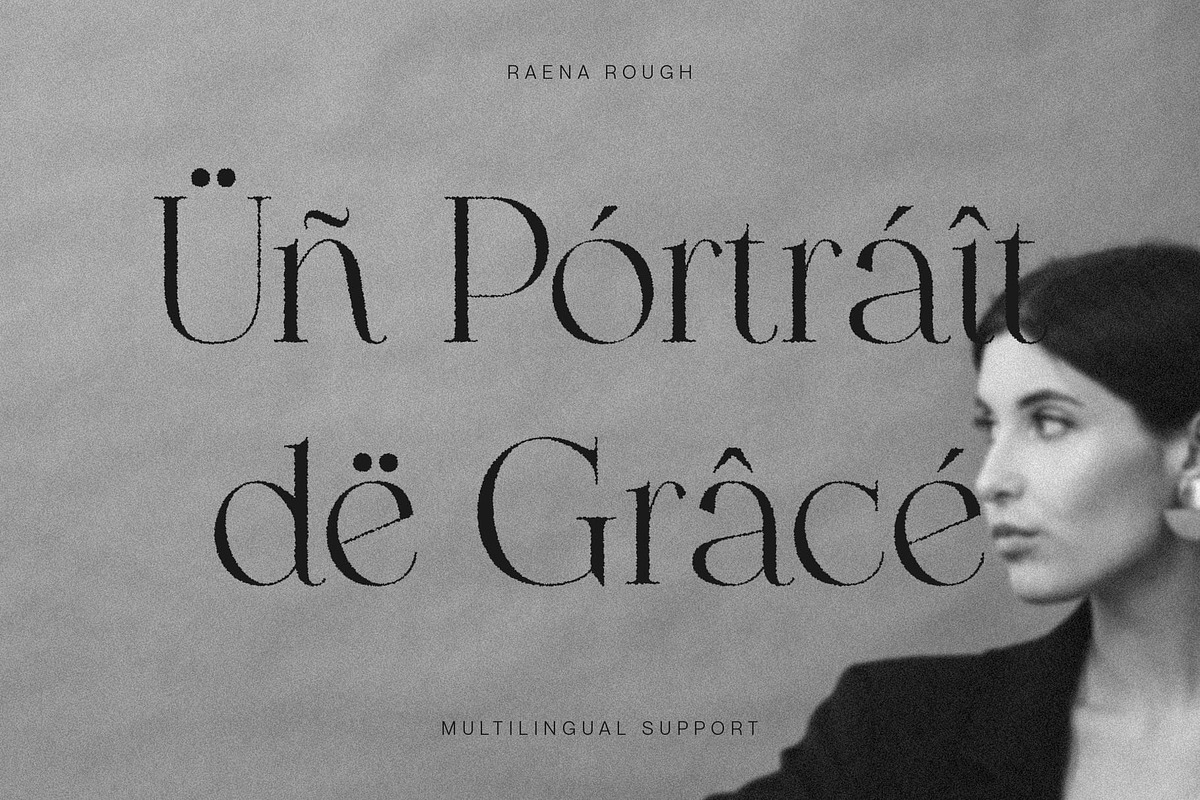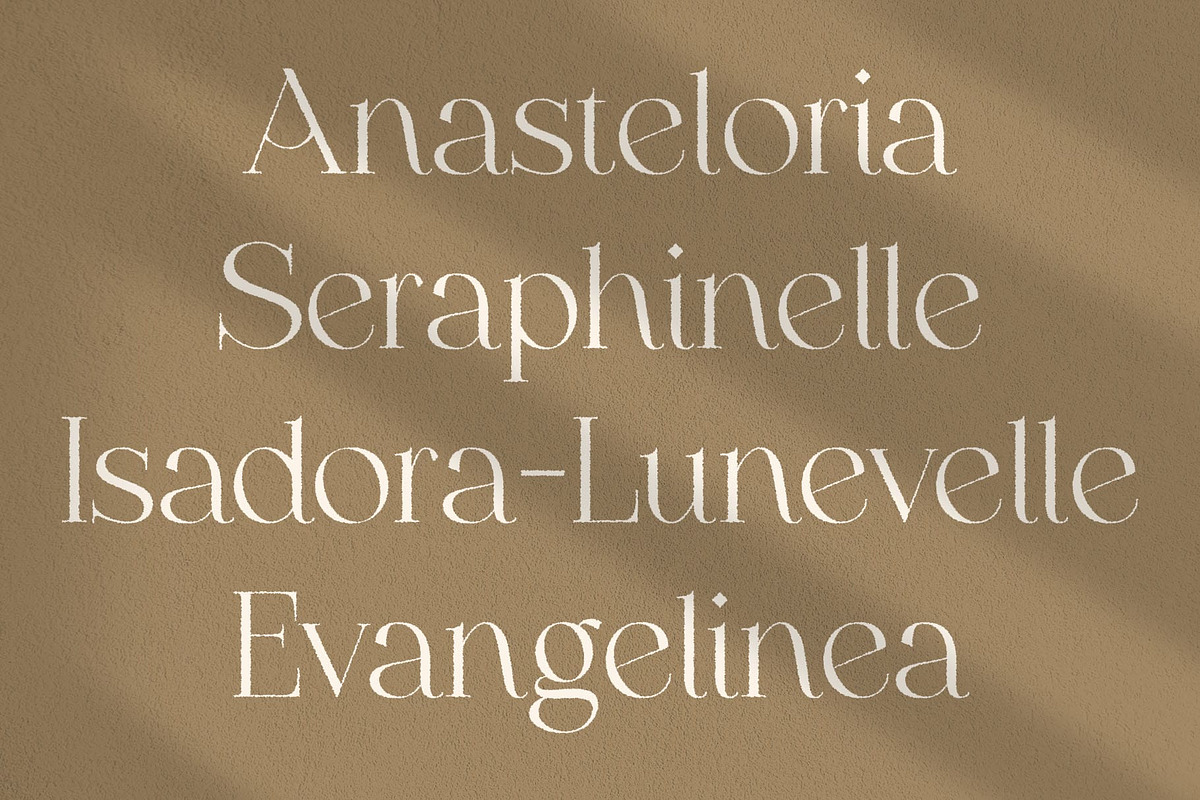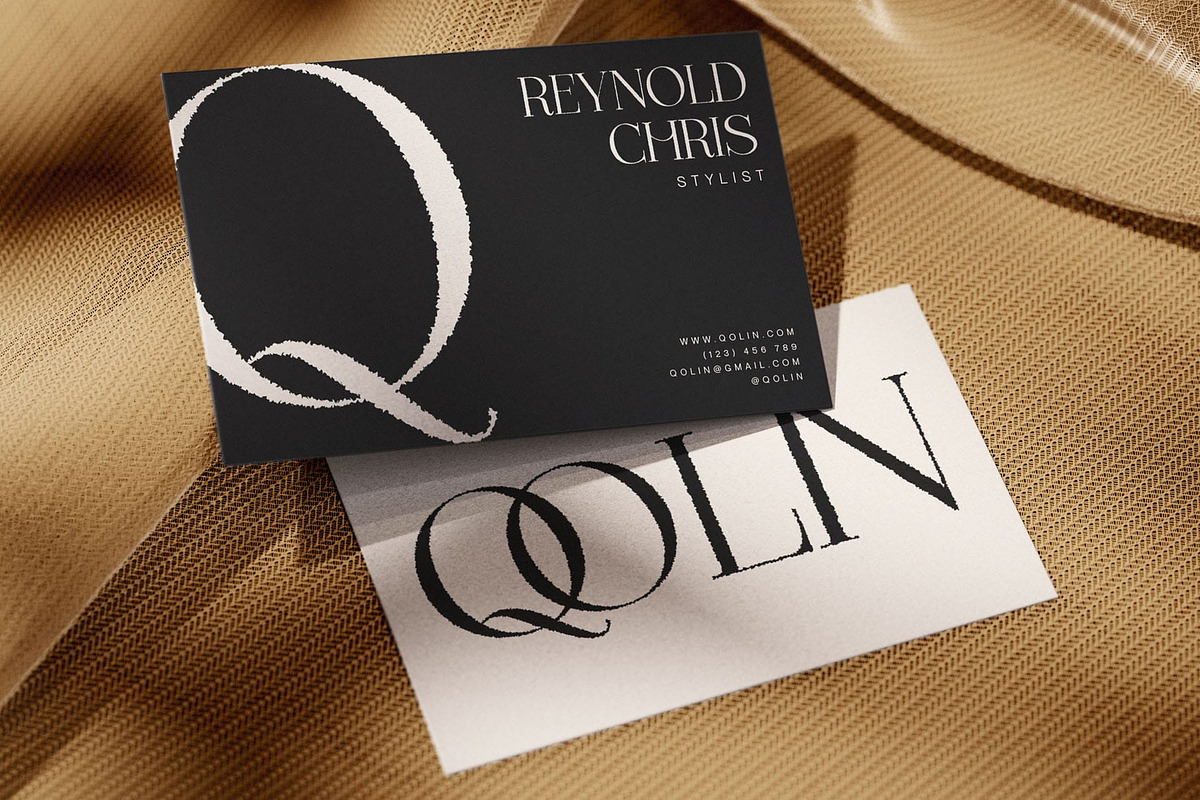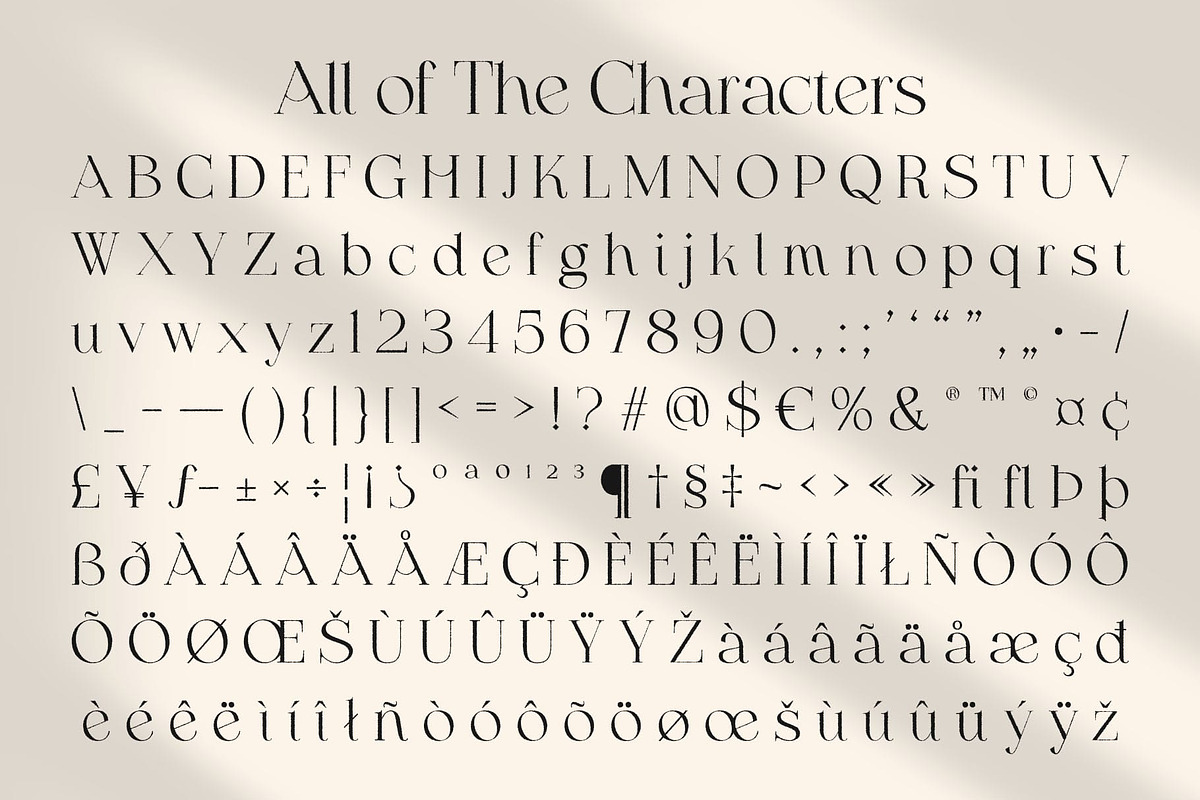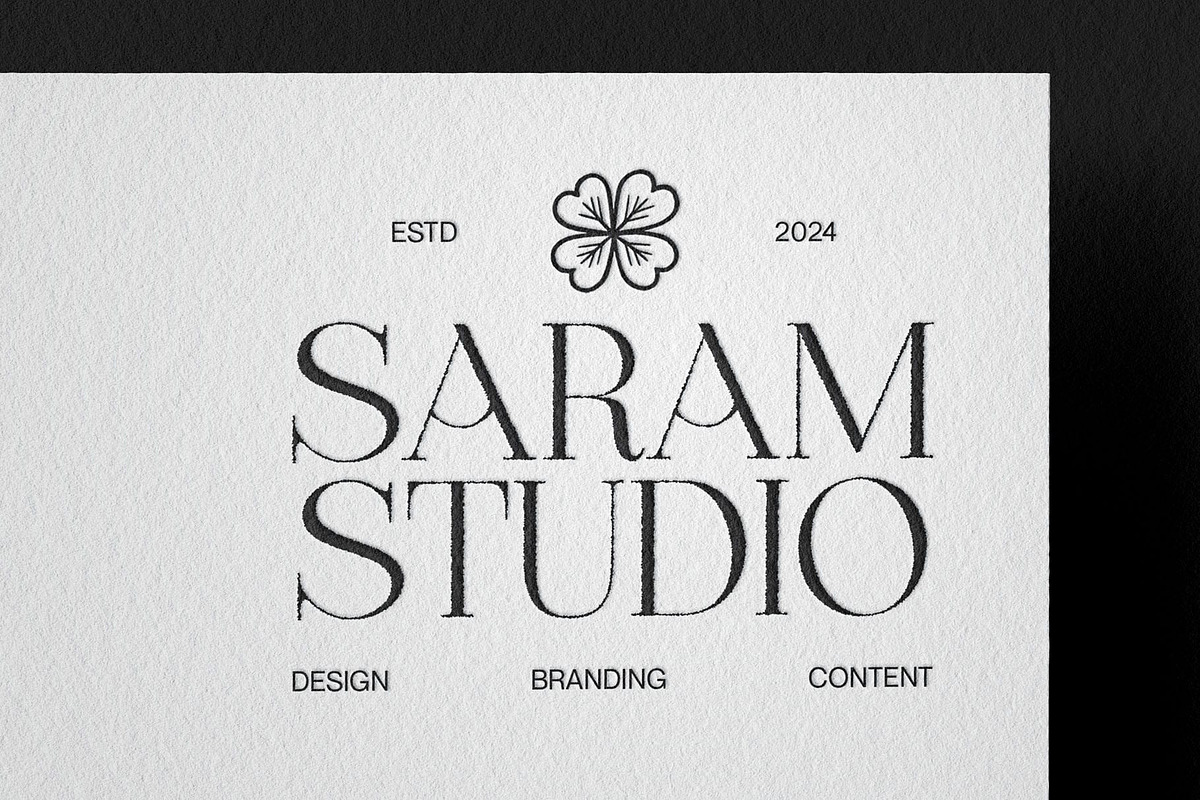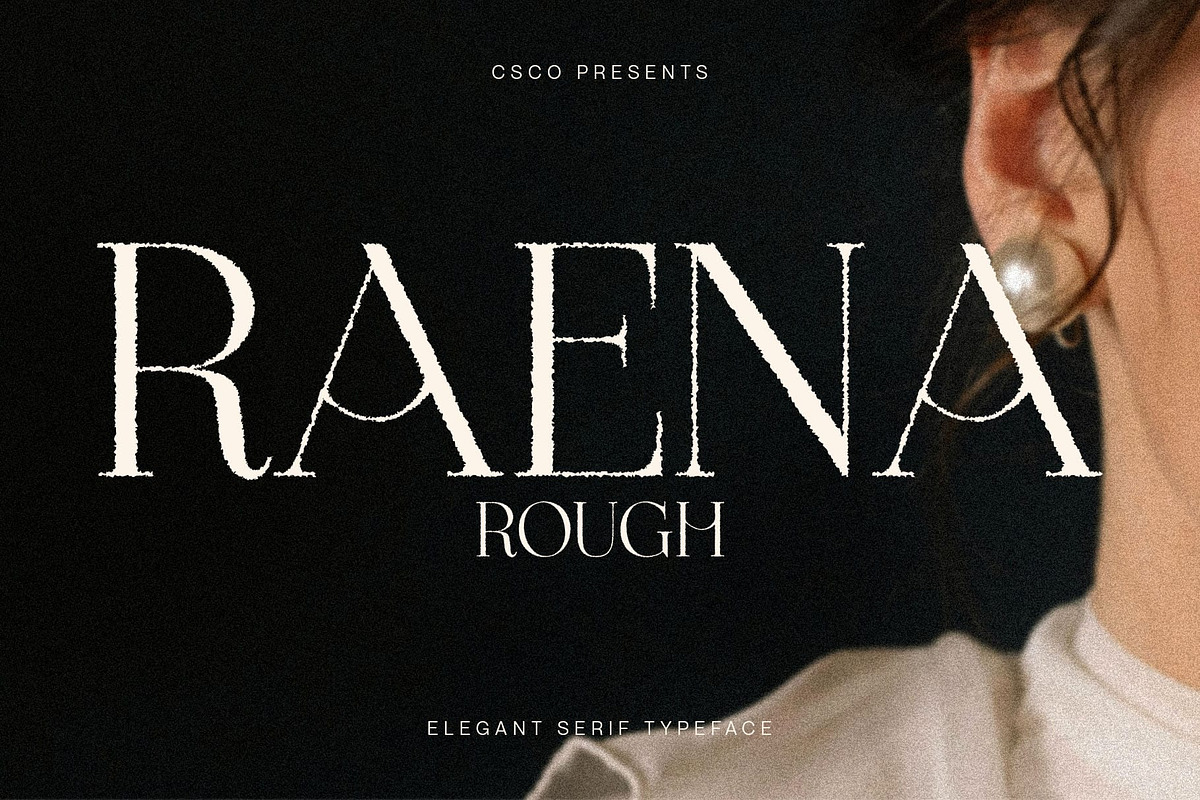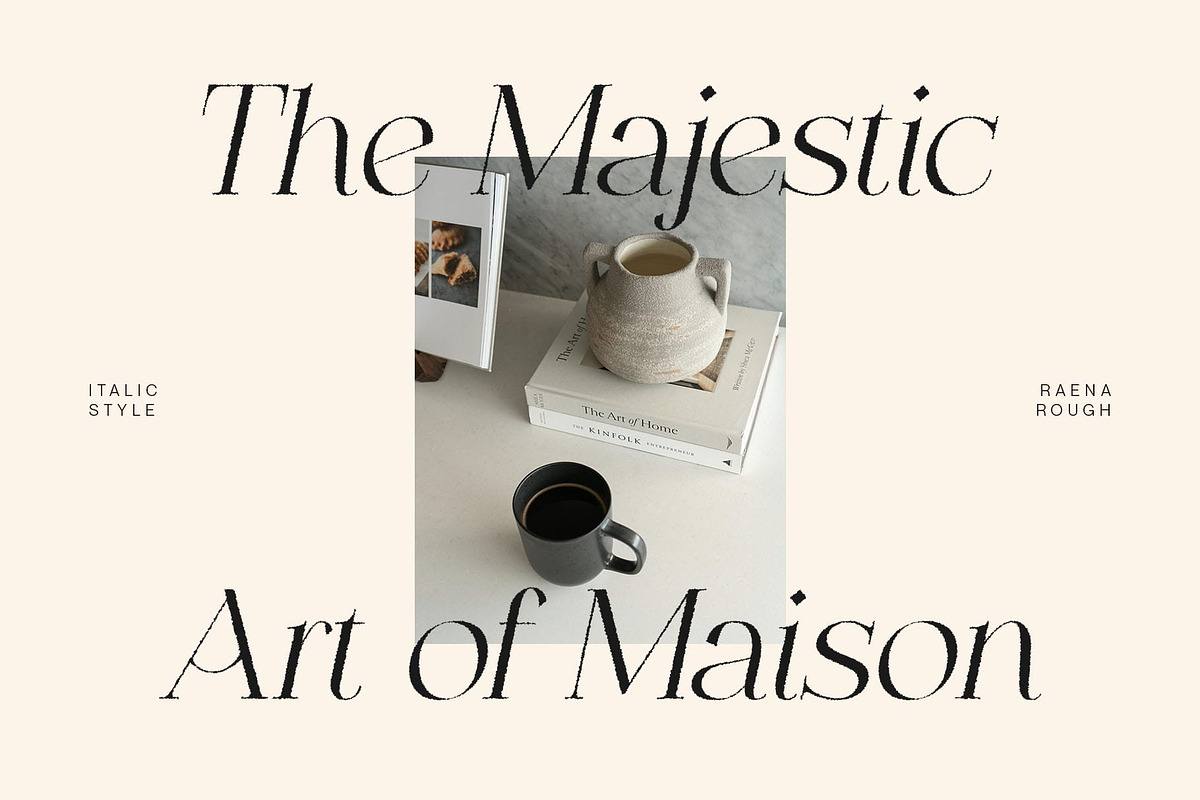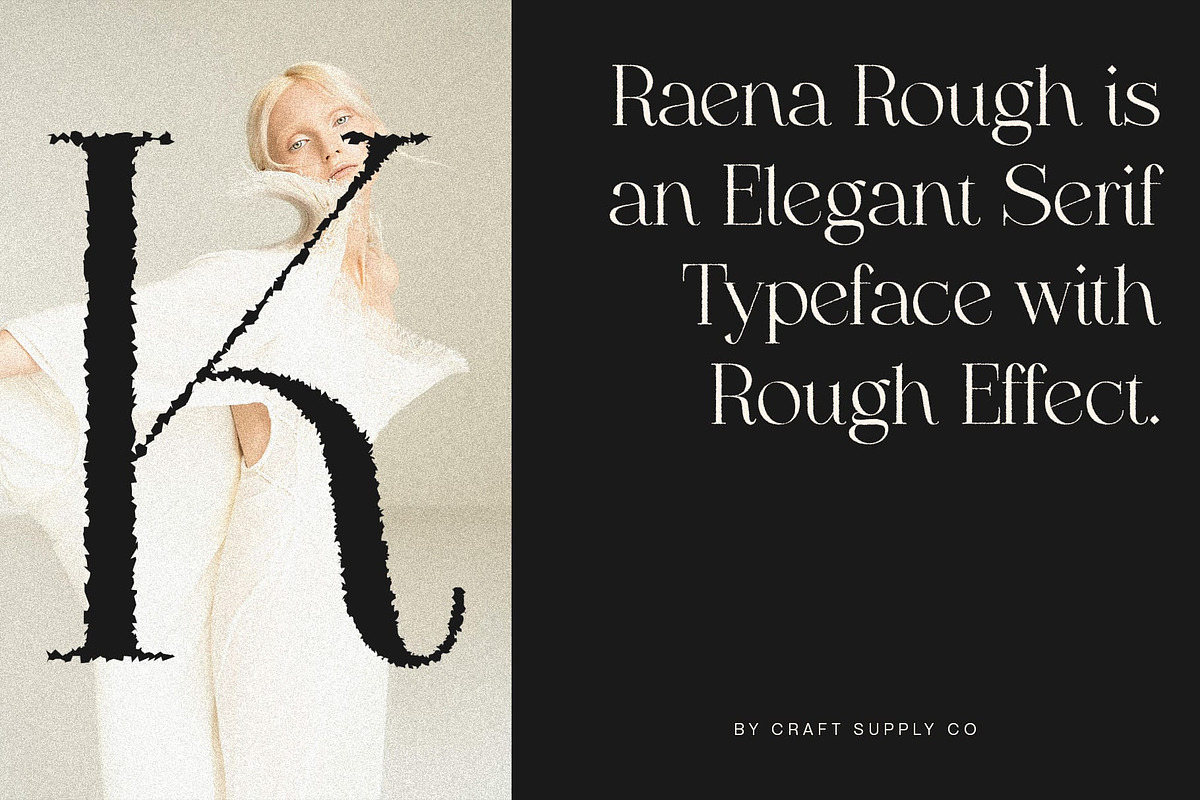
Raena Rough
Raena Rough Font – A Modern Serif with Elegant Lines and Artistic Texture
A Delicate Serif with a Bold Personality Raena Rough is a modern serif font that brings together the grace of minimalist design and the expressiveness of handcrafted detail. With its slim, clean letterforms and delicate serif features, it conveys sophistication and precision—while the rough texture adds a layer of depth, warmth, and human touch.
Classic Meets Creative Rooted in traditional serif structure, Raena Rough maintains a sense of sophistication and grace. The rough effect, however, introduces a raw and organic feel—making the font appear less sterile and more alive. This contrast between polished and imperfect brings a stylish authenticity that stands out in both print and digital applications.
Perfect for Character-Driven Design Whether used in branding, editorial layouts, packaging, or high-end invitations, Raena Rough adds a layer of artistic charm and individuality. It’s ideal for projects that seek to communicate not only elegance but also soul, warmth, and texture. From fashion lookbooks to boutique labels and artisan products, this font elevates messaging with its subtle yet impactful aesthetic.
A Statement in Simplicity and Style Raena Rough is more than a display of modern serif design—it’s a tool for creative storytelling. Its unique blend of elegance and rugged detail makes it perfect for visual identities that aim to be memorable, artistic, and refined.
- Raena Rough Regular
- Raena Rough Italic